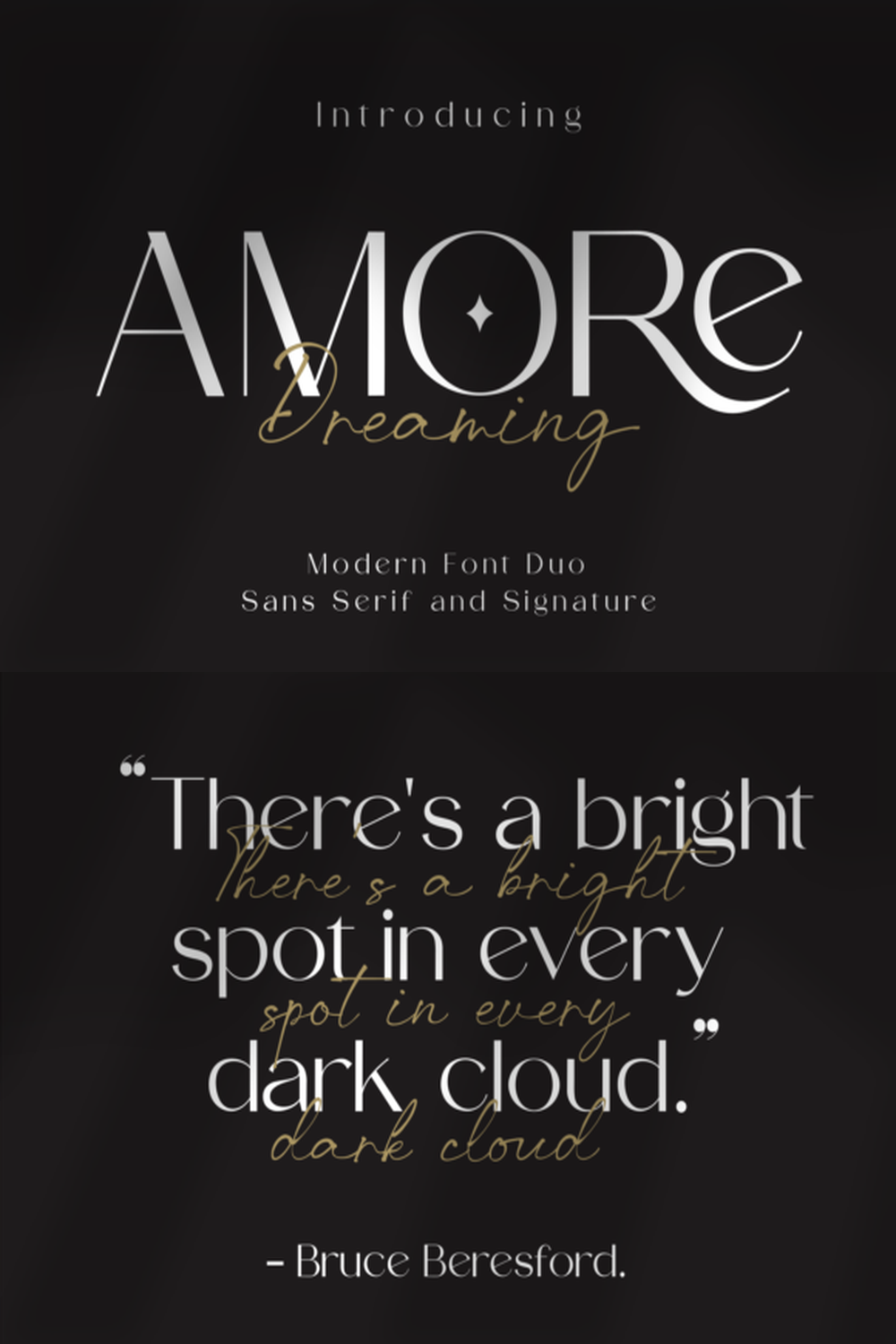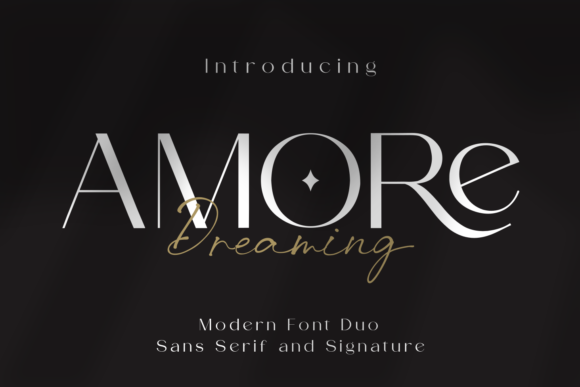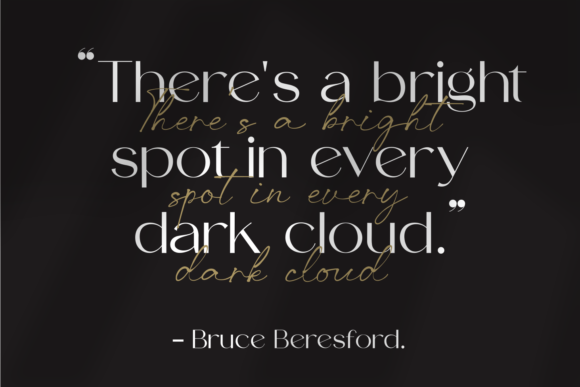
Amore Dreaming Font
About the Amore Dreaming Font
The Amore Dreaming Font offers a perfect balance of form and function for your design needs. Amore Dreaming is a luxury font duo with a combination of elegant sans serif font and a signature script font, which look divine when paired together. These fonts is PUA encoded which means you can access all of the glyphs and swashes with ease!